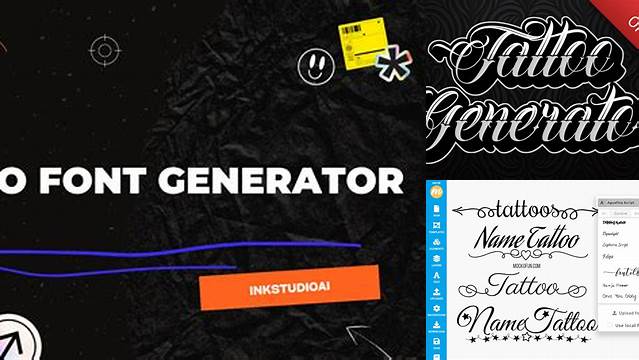
Tattoo Font Free Generator: Design Your Ink!
Choosing the perfect font for your tattoo is crucial. It's not just about aesthetics; it's about conveying the meaning and emotion behind your ink. A tattoo font free generator can be an amazing tool to explore different styles and find the one that truly resonates with you. So, if you're diving into the world of tattoos and trying to figure out the perfect lettering, you've come to the right place! Let's explore everything you need to know about tattoo fonts and how to generate them for free.
1. Understanding Tattoo Font Styles
First off, let's talk style, guys! The world of tattoo fonts is vast and varied. Understanding the different styles will help you narrow down your choices and find something that fits your vision. Think about the overall vibe you're going for – is it classic, modern, edgy, or delicate? Are you looking for something bold and attention-grabbing, or something more subtle and elegant? The font you choose should complement the overall design and meaning of your tattoo. For instance, a script font might be ideal for a heartfelt quote, while a bold, gothic font might be perfect for a more dramatic statement. Remember, your tattoo is a permanent expression of yourself, so choosing the right font is key to making it truly special.
2. Exploring Script Tattoo Fonts
Script fonts are super popular for tattoos, and for good reason! They bring a touch of elegance and fluidity that can really elevate your design. Think flowing lines, delicate curves, and a handwritten feel. Script fonts are ideal for quotes, names, or any text that you want to have a personal and intimate touch. There are tons of variations within the script category, from traditional calligraphy styles to more modern and whimsical designs. When choosing a script font, make sure it's legible and that the letters don't blend together, especially if your tattoo is small. A clean and clear script will ensure that your message comes across beautifully. Script fonts can evoke a range of emotions, from romantic and nostalgic to strong and confident, making them a versatile choice for various tattoo designs.
3. Gothic Tattoo Font Options
Gothic fonts are all about that bold, dramatic statement! If you're looking for something with an edgy and powerful vibe, gothic fonts are the way to go. These fonts are characterized by their sharp angles, thick lines, and intricate details. They often evoke a sense of mystery, strength, and tradition. Gothic fonts are perfect for those who want their tattoo to make a bold impression. They can be used for single words, short phrases, or even larger pieces that incorporate gothic lettering as a design element. When choosing a gothic font, think about the overall aesthetic you want to achieve. Some gothic fonts are more ornate and decorative, while others are cleaner and more minimalist. No matter your preference, a gothic font will definitely add a touch of drama and intrigue to your tattoo.
4. Old English Tattoo Fonts
Old English fonts are like the classics of the tattoo world. They're timeless, elegant, and steeped in history. Think medieval manuscripts and vintage documents – that's the vibe of Old English. These fonts have a distinctive, formal look with elaborate serifs and intricate letterforms. They're often used for names, initials, or short phrases, and they bring a touch of sophistication to any tattoo. Old English fonts are a great choice if you want something that feels traditional and refined. They're perfect for creating a sense of heritage and lasting impact. Just make sure the font is legible, especially if you're using a smaller size. With their classic appeal, Old English fonts are a surefire way to add a touch of timeless elegance to your ink.
5. Calligraphy Tattoo Fonts
Calligraphy fonts bring an artistic flair to your tattoo design. They're all about the beauty of handwriting, with elegant strokes and flowing lines. These fonts can range from traditional and formal to modern and whimsical, so there's plenty of variety to choose from. Calligraphy fonts are ideal for quotes, names, or any text that you want to have a personal and artistic touch. They evoke a sense of craftsmanship and attention to detail, making your tattoo feel like a unique piece of art. When choosing a calligraphy font, consider the overall aesthetic you want to achieve. A delicate, flowing script might be perfect for a romantic quote, while a bolder, more angular calligraphy font could be great for a powerful statement. No matter your style, calligraphy fonts can add a touch of elegance and sophistication to your tattoo.
6. Block Letter Tattoo Fonts
Block letter fonts are all about making a bold statement. They're strong, simple, and highly legible, making them a great choice for tattoos that you want to stand out. These fonts are characterized by their clean lines and uniform thickness, giving them a modern and impactful look. Block letter fonts are perfect for single words, initials, or short phrases. They work well in a variety of sizes, from small and subtle to large and attention-grabbing. When choosing a block letter font, consider the overall style you want to achieve. Some block letter fonts are more rounded and friendly, while others are more angular and industrial. Whether you're going for a minimalist look or a bold statement, block letter fonts can help you create a tattoo that's both stylish and impactful.
7. Cursive Tattoo Font Styles
Cursive fonts are all about adding a touch of elegance and fluidity to your tattoo. They mimic the flow of handwriting, with connected letters and graceful curves. Cursive fonts are a popular choice for names, quotes, and any text that you want to have a personal and intimate feel. They evoke a sense of sophistication and style, making your tattoo feel like a piece of art. There are tons of variations within the cursive category, from classic and formal scripts to more modern and whimsical designs. When choosing a cursive font, make sure it's legible and that the letters flow smoothly together. A well-chosen cursive font can add a touch of timeless beauty to your tattoo.
8. Tattoo Font Generators: How They Work
Alright, let's dive into the nitty-gritty of tattoo font generators! These tools are super handy for experimenting with different fonts and seeing how your text will look as a tattoo. Most tattoo font free generators work by allowing you to type in your desired text and then preview it in a variety of fonts. You can often adjust the size, color, and other aspects of the font to get a better idea of how it will look on your skin. Some generators even let you upload an image of the area where you want the tattoo, so you can visualize the font in context. These generators are a great way to explore different options and narrow down your choices before you commit to a final design. They're also a fantastic resource for getting inspiration and sparking your creativity. So, if you're feeling overwhelmed by the sheer number of font options out there, a tattoo font free generator can be your best friend!
9. Benefits of Using a Free Tattoo Font Generator
Why should you use a tattoo font free generator, you ask? Well, there are tons of benefits! First and foremost, it's free! You can experiment with as many fonts as you want without spending a dime. This is a huge advantage, especially if you're on a budget or just want to explore your options. A tattoo font free generator also allows you to visualize your text in different styles before you even talk to a tattoo artist. This can save you time and effort in the long run, as you'll have a clear idea of what you want. Plus, these generators are super easy to use. You simply type in your text, choose a font, and voila! You can see a preview of your tattoo design in seconds. Whether you're a tattoo newbie or a seasoned ink enthusiast, a tattoo font free generator is a valuable tool for creating the perfect tattoo.
10. Choosing the Right Tattoo Font Size
The size of your tattoo font is just as important as the style! You need to make sure the font is legible and that the details won't blur together over time. A good rule of thumb is to choose a font size that's proportionate to the overall size of your tattoo. If you're getting a small tattoo, you'll want to avoid fonts with intricate details or thin lines, as these can easily fade or blur. Larger tattoos can accommodate more elaborate fonts, but you still need to ensure the text is clear and readable. Consider the placement of your tattoo as well. A font that looks great on your arm might not work as well on your wrist or ankle. When in doubt, it's always best to err on the side of caution and choose a slightly larger font size. Your tattoo artist can also offer valuable advice on font size and placement, so be sure to consult with them before making a final decision.
11. Legibility Considerations for Tattoo Fonts
Legibility is key when choosing a tattoo font! You want to make sure your tattoo is easy to read, both now and in the future. Fonts with overly intricate details, thin lines, or closely spaced letters can become blurry and difficult to decipher over time. This is especially true for smaller tattoos or those placed in areas where the skin stretches and moves a lot. When choosing a font, think about the long-term impact. Will the font still be legible in 10, 20, or even 50 years? Opt for fonts with clear, well-defined letters and ample spacing between the lines. Avoid fonts that are too ornate or stylized, as these can sacrifice legibility for aesthetics. Remember, your tattoo is a permanent expression of yourself, so you want to make sure your message comes across loud and clear!
12. Matching Font to Tattoo Design
Matching your font to your overall tattoo design is crucial for creating a cohesive and visually appealing piece of art. The font should complement the design elements and enhance the overall message of your tattoo. Think about the style and mood of your tattoo. Is it classic, modern, edgy, or delicate? The font you choose should reflect that same aesthetic. For instance, a script font might be perfect for a floral design, while a gothic font could complement a more dramatic or mystical tattoo. Consider the placement of your tattoo as well. A bold, blocky font might work well on your arm or back, while a more delicate script might be better suited for your wrist or ankle. Your tattoo artist can offer valuable advice on font and design pairings, so be sure to discuss your vision with them. A well-matched font and design will create a tattoo that's both beautiful and meaningful.
13. The Importance of Font Spacing
Font spacing might seem like a minor detail, but it can make a huge difference in the overall look and legibility of your tattoo. Proper spacing between letters and words ensures that your text is easy to read and that the design looks balanced and harmonious. If the letters are too close together, they can blend and become difficult to decipher. If they're too far apart, the text can look disjointed and awkward. The ideal spacing will vary depending on the font style and size, but a good rule of thumb is to leave enough room between letters so that they don't touch or overlap. Consider the negative space around the letters as well. This can help to create a sense of balance and visual appeal. Your tattoo artist can adjust the spacing of your font to ensure it looks perfect on your skin. Pay attention to these details, guys – it's what separates a good tattoo from a great one!
14. How to Preview Tattoo Fonts
Previewing tattoo fonts is a must before you commit to a final design! You want to see how the font will look on your skin and ensure that it's legible and visually appealing. A tattoo font free generator is a fantastic tool for previewing fonts. These generators allow you to type in your text and see it displayed in a variety of font styles. You can often adjust the size, color, and other aspects of the font to get a realistic preview. Some generators even let you upload an image of the area where you want the tattoo, so you can visualize the font in context. Another great way to preview fonts is to print out your text in different styles and sizes. You can then hold the paper up to your skin to see how it looks. Don't skip this step, guys! Previewing your font will help you make an informed decision and avoid any regrets down the road.
15. Common Mistakes to Avoid with Tattoo Fonts
Choosing the right tattoo font can be tricky, and there are a few common mistakes you'll want to avoid. One of the biggest is choosing a font that's too small or intricate. These fonts can blur over time, making your tattoo difficult to read. Another mistake is choosing a font that's not legible. Fonts with overly stylized letters or unusual shapes might look cool, but they can be hard to decipher, especially from a distance. It's also important to match your font to your overall tattoo design. A font that clashes with the style or mood of your tattoo can create a jarring effect. Don't rush the font selection process, guys. Take your time to explore different options and choose a font that's both beautiful and functional. And always consult with your tattoo artist – they can offer valuable advice and help you avoid these common pitfalls.
16. Finding Inspiration for Tattoo Fonts
Need some inspiration for your tattoo font? There are tons of places to find it! Online tattoo font free generators are a great starting point. You can browse through a wide variety of fonts and see how your text looks in different styles. Social media platforms like Pinterest and Instagram are also fantastic resources. Search for tattoo fonts or lettering to find examples of designs that you love. Tattoo magazines and websites can provide inspiration as well. Pay attention to the fonts used in other tattoos you admire. What styles do you gravitate towards? What fonts complement the overall design? Don't be afraid to get creative and experiment with different fonts until you find the perfect one for your tattoo. Remember, your tattoo is a unique expression of yourself, so your font should be too!
17. Working with a Tattoo Artist on Font Selection
Working closely with your tattoo artist on font selection is crucial for creating a tattoo you'll love. Your artist is a pro when it comes to ink, and they can offer valuable advice on what fonts will work best for your design, skin type, and placement. Bring your ideas and inspiration to your consultation, but be open to their suggestions. They might recommend a font you hadn't considered, or suggest adjustments to your chosen font to ensure it looks amazing. Your tattoo artist can also help you with sizing, spacing, and overall legibility. They'll make sure your tattoo is not only beautiful but also stands the test of time. Think of your tattoo artist as your partner in this process. By working together, you can create a tattoo that's truly special and unique.
18. Popular Tattoo Font Styles for Quotes
Quotes are a super popular choice for tattoos, and the font you choose can make all the difference in how your message comes across. Script fonts are a classic choice for quotes, adding a touch of elegance and fluidity. Calligraphy fonts can also create a beautiful and artistic look. For a more modern feel, consider using a sans-serif font with clean lines and a minimalist aesthetic. Gothic fonts can add a dramatic and edgy vibe to your quote. When choosing a font for your quote tattoo, think about the overall tone and message you want to convey. A delicate script might be perfect for a romantic quote, while a bold gothic font could be ideal for a powerful statement. Legibility is key, so make sure the font is easy to read, even from a distance. With the right font, your quote tattoo will be a meaningful and stylish expression of yourself.
19. Best Fonts for Name Tattoos
Name tattoos are a timeless way to honor someone special, and the font you choose can make all the difference. Script fonts are a popular choice for name tattoos, adding a personal and elegant touch. Cursive fonts can also create a beautiful and flowing design. For a more modern feel, consider using a simple and clean sans-serif font. Old English fonts can add a classic and sophisticated touch. When choosing a font for your name tattoo, think about the person you're honoring and their personality. A delicate script might be perfect for a loved one who's gentle and kind, while a bolder font could be ideal for someone who's strong and independent. Legibility is crucial, so make sure the font is easy to read and that the letters don't blend together. With the right font, your name tattoo will be a meaningful and lasting tribute.
20. Matching Tattoo Fonts with Different Body Placements
The placement of your tattoo can influence the best font choice. Certain fonts work better in some areas than others. For example, a script or cursive font might look stunning on the wrist or forearm, while a bolder, blockier font might be better suited for the back or chest. Smaller areas, like fingers or ankles, require simpler fonts with minimal detail to maintain legibility over time. Larger areas offer more flexibility, allowing for intricate designs and elaborate fonts. Consider how the font will flow with the natural curves and lines of your body. A font that looks great on paper might not translate well to a specific body part. Your tattoo artist can help you choose a font that complements your chosen placement and ensures a visually appealing result.
21. Tattoo Font Free Generator Tools Online
There are tons of tattoo font free generator tools online, making it easier than ever to find the perfect font for your ink. These generators allow you to type in your text and preview it in a variety of fonts, sizes, and styles. Some popular options include websites like DaFont, FontSpace, and 1001 Fonts, which offer a vast library of fonts that you can download and use for free. Many online tattoo design tools also include font generators, allowing you to visualize your text in the context of your overall design. These generators often offer customization options, such as adjusting the size, spacing, and color of the font. Whether you're looking for a script, gothic, or sans-serif font, a tattoo font free generator can help you explore your options and find the perfect match for your vision.
22. Downloading and Using Free Tattoo Fonts
Downloading and using free tattoo fonts is a great way to add a personal touch to your ink. Many websites offer a wide selection of free fonts that you can use for your tattoo design. Before you download a font, make sure to check the licensing terms to ensure it's free for commercial use. Once you've downloaded the font, you'll need to install it on your computer. This usually involves extracting the font files from a ZIP archive and then double-clicking the font file to install it. After the font is installed, you can use it in your favorite design software or tattoo font free generator. When using a free font, it's a good idea to test it out in different sizes and styles to make sure it looks good and is legible. Your tattoo artist can also provide valuable feedback on the font and help you make any necessary adjustments.
23. Creating Custom Tattoo Fonts
If you want a truly unique tattoo, consider creating a custom font! This allows you to design a font that perfectly reflects your personality and style. You can use font design software or even hand-draw your own font. Creating a custom font can be a time-consuming process, but the result is a one-of-a-kind tattoo that no one else will have. Start by sketching out the basic shapes of the letters, then refine the details and spacing. Think about the overall aesthetic you want to achieve. Do you want a font that's elegant and flowing, or bold and edgy? Once you've created your font, you can use it in a tattoo font free generator to preview how it will look as a tattoo. Working with a skilled tattoo artist is essential for translating your custom font into a stunning piece of ink. They can help you make any necessary adjustments and ensure that the font is perfectly executed.
24. Font Licensing and Usage Rights
When using fonts for your tattoo, it's important to understand font licensing and usage rights. Most fonts are protected by copyright, which means you need permission from the font designer to use them commercially. If you're using a font for a tattoo that you're selling or using for promotional purposes, you'll likely need a commercial license. Many free fonts come with personal use licenses, which means you can use them for your own personal projects but not for commercial purposes. Always check the licensing terms before using a font to avoid copyright infringement. If you're unsure about the licensing terms, it's best to contact the font designer or distributor for clarification. Using a font legally ensures that you're respecting the rights of the designer and avoiding any potential legal issues.
25. Font Pairing for Tattoo Designs
Font pairing is the art of combining different fonts to create a visually appealing design. This can be a great way to add depth and interest to your tattoo. When pairing fonts, it's important to choose fonts that complement each other. A general rule of thumb is to pair a display font (a decorative font used for titles or headings) with a simpler body font (a font that's easy to read in large blocks of text). For example, you might pair a bold gothic font with a clean sans-serif font, or a script font with a block letter font. Consider the overall style of your tattoo when choosing fonts to pair. Do you want a classic and elegant look, or a modern and edgy vibe? Experiment with different font combinations in a tattoo font free generator to see what works best for your design. A well-paired font combination can elevate your tattoo from good to great.
26. Tattoo Font Trends and Styles
Tattoo font trends come and go, just like any other design trend. Staying up-to-date on the latest styles can help you create a tattoo that's both stylish and timeless. Currently, minimalist fonts with clean lines are popular, as are script fonts with a modern twist. Geometric fonts and hand-drawn lettering are also gaining traction. Vintage-inspired fonts, like Old English and calligraphy, remain classic choices. When choosing a font, it's important to consider your personal style and preferences, as well as the overall design of your tattoo. A trendy font might look great now, but will it still resonate with you in 10 or 20 years? Opt for a font that's both visually appealing and meaningful to you. A tattoo font free generator can help you explore different trends and styles and find the perfect fit for your ink.
27. Preserving Tattoo Font Legibility Over Time
Preserving the legibility of your tattoo font over time is crucial for ensuring that your ink looks great for years to come. Certain factors, such as sun exposure, skin elasticity, and the quality of the ink, can affect how well your tattoo ages. Choose a font that's legible to begin with, avoiding fonts with overly thin lines or intricate details. Proper spacing between letters and words is also essential. Smaller tattoos are more prone to blurring over time, so consider choosing a bolder font or a larger size. Protect your tattoo from the sun by applying sunscreen regularly. Moisturizing your skin can also help to keep your tattoo looking fresh and vibrant. With proper care and attention, you can ensure that your tattoo font remains legible and beautiful for a lifetime.
28. Aftercare Tips for Tattooed Fonts
Proper aftercare is essential for ensuring that your tattooed font heals properly and looks its best. Follow your tattoo artist's instructions carefully, as aftercare can vary depending on the size, placement, and style of your tattoo. Generally, you'll need to keep your new tattoo clean and moisturized. Gently wash the area with mild soap and water several times a day, and apply a thin layer of fragrance-free moisturizer. Avoid picking or scratching your tattoo, as this can damage the skin and lead to infection. Protect your tattoo from the sun by wearing loose-fitting clothing or applying sunscreen. It's also important to avoid soaking your tattoo in water, such as in a bath or swimming pool, until it's fully healed. With proper aftercare, your tattooed font will heal beautifully and remain legible for years to come.
29. How a Tattoo Font Free Generator Enhances Design Process
A tattoo font free generator significantly enhances the design process for your tattoo. These tools provide a quick and easy way to experiment with different fonts and visualize how your text will look as a tattoo. You can try out various styles, sizes, and arrangements without having to commit to anything. This allows you to explore your options and make informed decisions about your design. A tattoo font free generator can also help you identify potential issues, such as font legibility or spacing problems. By previewing your text in different fonts, you can ensure that your tattoo will be both visually appealing and easy to read. These generators save time and effort by allowing you to narrow down your choices before consulting with your tattoo artist. Ultimately, a tattoo font free generator empowers you to create a tattoo that truly reflects your personal style and vision.
30. The Future of Tattoo Font Generators
The future of tattoo font generators is looking bright! As technology advances, we can expect to see even more sophisticated and user-friendly tools for designing tattoos. Imagine generators that use augmented reality (AR) to project your chosen font onto your skin in real-time, allowing you to see exactly how it will look before you even step into a tattoo studio. We may also see generators that incorporate artificial intelligence (AI) to suggest font pairings and design elements based on your preferences. These AI-powered tools could analyze your style and recommend fonts that complement your overall aesthetic. The possibilities are endless! As tattoo font free generators continue to evolve, they'll become even more valuable resources for both tattoo artists and enthusiasts, making the design process more seamless and creative than ever before. So, keep an eye out for the exciting innovations to come in the world of tattoo font generation!